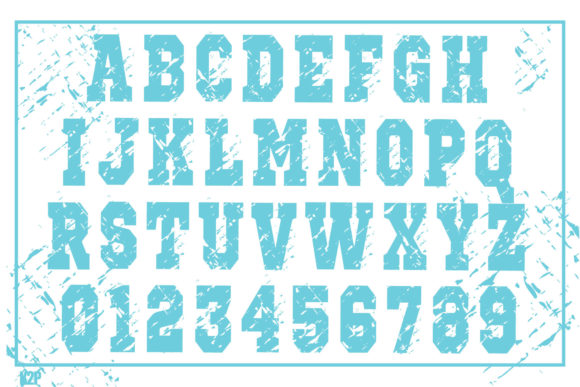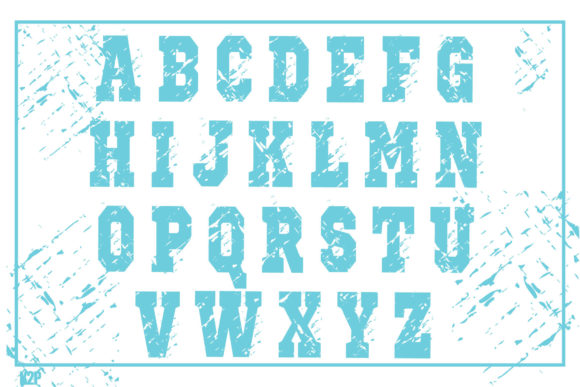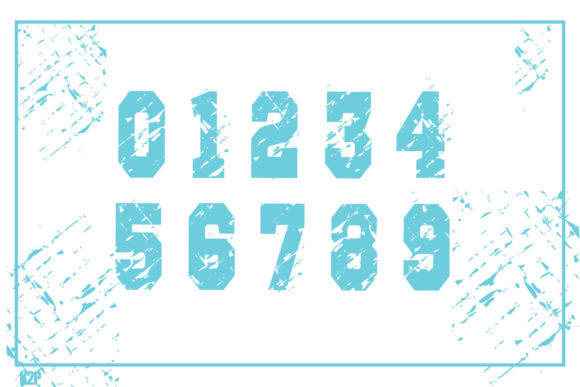
Introduction to Snow Storm Font
Do you remember the excitement of rummaging through your grandmother’s attic on a cold winter morning? The air was crisp, the snowflakes gently fell outside, and the smell of old books and dusty trinkets filled the air. It was a treasure trove of creative inspiration, and I’m sure you, like me, felt the urge to create something magical.
As a designer, you know that sometimes it takes just the right font to bring a project to life. That’s where the Snow Storm Font comes in – a high-quality, thick-lettered display font that’s perfect for any winter-themed project or crafty idea. With its unique design, it’s a valuable addition to any design resource, and the best part? It’s available for free download with a transparent background, making it easy to incorporate into your creative project.
Whether you’re working on a festive brochure, a winter wonderland-themed website, or a set of holiday cards, the Snow Storm Font is sure to add a touch of magic to your design. So why not give it a try and see the amazing outcome for yourself?
Key Features of Snow Storm Font
- Unique, transparent background design for added depth and visual interest
- Includes multiple font styles, including bold and italic, for added versatility
- Designed as a design resource for creative professionals and hobbyists alike
Honest Review: Snow Storm Font
As a designer, I’m always on the lookout for high-quality design resources that can elevate my creative projects. Recently, I came across the Snow Storm Font, and I’m excited to share my thoughts on it.
- ✨ Unique and creative design aesthetic: The Snow Storm Font has a beautiful, ethereal quality that’s perfect for projects that need a touch of magic.
- ✨ High quality and crisp: The font is well-designed and has a crisp, clear appearance that’s easy to read.
- ⚠️ Limited character set: The font only includes a limited character set, which may not be suitable for longer texts or complex projects.
- ⚠️ Not ideal for dark backgrounds: The transparent background may not work well with dark backgrounds, which can make the text difficult to read.
Overall, the Snow Storm Font is a great addition to any designer’s toolkit. While it has some limitations, its unique design aesthetic and high quality make it a valuable resource for creative projects. If you’re looking for a free, high-quality font with a touch of magic, the Snow Storm Font is definitely worth checking out.
Design Resource for Your Creative Project
The Snow Storm Font is a high-quality design resource that can elevate your creative project to the next level. With a transparent background, this font is versatile and can be used in a variety of contexts.
Tips for Getting the Most Out of Snow Storm Font
Here are a few tips for getting the most out of the Snow Storm Font: experiment with different font sizes and colors, use the font in combination with other design elements, and take advantage of the font’s transparent background to create unique and creative designs.
Common Use Cases for Snow Storm Font
The Snow Storm Font is perfect for a variety of use cases, including: creating graphics and designs for social media, designing presentations and documents, and creating illustrations and graphics for creative projects.